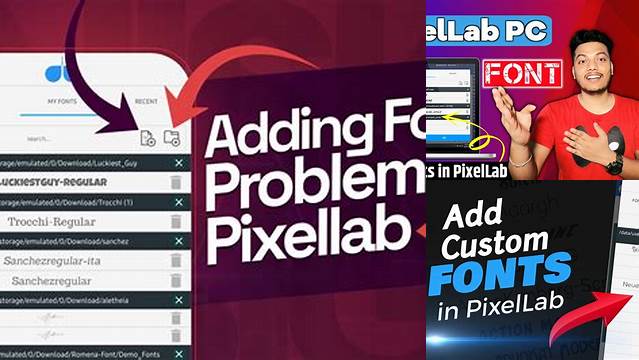
Add Fonts To Pixellab On PC: A Simple Guide
Adding custom fonts to Pixellab on your PC can significantly enhance your design projects, allowing for greater creativity and personalization. If you're looking to elevate your text designs and make them truly unique, mastering the font addition process is essential. This guide provides a detailed walkthrough on how to add fonts in Pixellab on PC, covering everything from finding the right fonts to installing them and using them in your projects. Let's dive in, guys, and get those creative juices flowing!
1. Understanding Pixellab and Its Font Capabilities
Before we jump into the process, it's crucial to understand what Pixellab is and its font capabilities. Pixellab is a fantastic mobile app designed for creating text-based graphics and designs. While primarily used on mobile devices, Pixellab can also be used on a PC using emulators. One of its standout features is the ability to add custom fonts, which opens up a world of design possibilities. Guys, think of it: you're no longer limited to the default fonts! You can use unique, stylish fonts that match your brand or the specific mood of your design. This feature makes Pixellab a powerful tool for anyone looking to create eye-catching visuals. By understanding these basic capabilities, you can fully leverage Pixellab's potential for your PC-based design projects, ensuring that your text elements are not only informative but also visually appealing and perfectly aligned with your creative vision. Adding custom fonts transforms Pixellab from a basic text editor into a versatile design platform. Custom fonts enable designers to match typography with specific branding guidelines, create unique visual identities, and tailor the aesthetic of their projects to meet diverse creative needs. This flexibility is particularly beneficial for marketing materials, social media graphics, and personal projects, where standing out from the crowd is crucial. Moreover, custom fonts can improve the overall readability and impact of text, making messages more engaging and effective. Experimenting with different font styles allows for the exploration of various design themes, from vintage and elegant to modern and bold. The ability to integrate custom fonts enhances the overall user experience by providing a more personalized and creative design environment.
2. Finding and Downloading Fonts for Pixellab
3. Installing Fonts on Your PC
4. Using an Android Emulator to Run Pixellab on PC
5. Adding Fonts to Pixellab Within the Emulator
Now that you have Pixellab running on your PC via an emulator, it's time to add your installed fonts to the app. Guys, this is the final step in our journey! Open Pixellab within the emulator. In the app, tap on the "A" icon at the bottom to access the text editing options. Then, select "Fonts." You will see a list of default fonts. To add your custom fonts, tap the "My Fonts" tab. Here, you'll see an option to add fonts from a folder. Navigate to the folder where you saved your downloaded fonts and select the font files you want to add. Pixellab will then import the fonts, and they will appear in your "My Fonts" list. You can now use these fonts in your designs. If you encounter any issues, ensure that the font files are in a compatible format (.ttf or .otf) and that the emulator has the necessary permissions to access your PC's file system. This process might vary slightly depending on the emulator you are using, but the basic steps remain the same. Once the fonts are added, they will be available for all your Pixellab projects, providing you with a wide range of typographic options. This step is crucial for personalizing your designs and making them stand out. Properly managing your font library within Pixellab will also ensure a smooth and efficient design workflow. Adding custom fonts to Pixellab expands the creative possibilities within the app, allowing for more unique and professional-looking designs. This feature is particularly useful for branding projects, where specific fonts are often required to maintain consistency. By importing custom fonts, users can ensure their designs align with their vision and brand guidelines, resulting in a polished and cohesive final product.
6. Troubleshooting Font Issues in Pixellab
Sometimes, adding fonts doesn't go as smoothly as planned. Guys, let's talk about some common issues and how to fix them. If a font doesn't appear in Pixellab after you've added it, first ensure that the font file is in the correct format (.ttf or .otf). Also, double-check that you've installed the font on your PC and that the emulator has access to your PC's file system. Sometimes, simply restarting the emulator and Pixellab can resolve the issue. If a font looks distorted or doesn't render correctly, it could be a compatibility issue. Try using a different font or updating Pixellab to the latest version. If you're using a large number of fonts, this can sometimes cause performance issues. Try removing unused fonts to improve Pixellab's performance. Always make sure that the fonts you are using are licensed for your intended use. Using unlicensed fonts can lead to legal issues. By addressing these common problems, you can ensure a smoother font addition process and a more enjoyable design experience. Troubleshooting is a critical skill for any designer, and understanding potential font-related issues can save you time and frustration. Keeping your software and emulator updated is also essential for optimal performance and compatibility. Regularly backing up your font library can prevent data loss and ensure you always have access to your favorite fonts. This step is vital for maintaining a seamless and efficient workflow, allowing you to focus on your creative work without technical interruptions. Identifying and resolving issues promptly ensures that your designs remain consistent and professional, regardless of the platform or device used.
7. Organizing Your Fonts for Better Workflow
Keeping your fonts organized is crucial for a smooth workflow, especially when you have a large collection. Guys, let's get organized! Create folders on your PC to categorize your fonts, such as by style (serif, sans-serif, script) or project. This makes it easier to find the font you need quickly. When downloading new fonts, immediately place them in their respective folders. Within Pixellab, you can also create a system for organizing your fonts. You might use descriptive names or tags to easily identify fonts that you use frequently or for specific projects. Regularly review your font library and remove fonts you no longer use. This helps keep your list manageable and improves Pixellab's performance. Consider using a font management tool to help you organize, activate, and deactivate fonts as needed. Good font organization not only saves time but also reduces clutter and improves your overall design workflow. An organized font library allows you to quickly access the perfect font for any project, enhancing your creativity and efficiency. Regularly cleaning up your font collection ensures that only necessary fonts are loaded, preventing performance issues and streamlining your design process. This step is critical for maintaining a productive and clutter-free workspace, allowing you to focus on the creative aspects of your work. Efficient font management also facilitates collaboration with other designers, as organized font libraries are easier to share and maintain consistency across projects. This practice contributes to a more professional and streamlined design workflow, ultimately improving the quality and consistency of your work.
8. Exploring Different Font Styles and Pairings
Experimenting with different font styles and pairings can significantly enhance your designs. Guys, let's get creative! Serif fonts (like Times New Roman or Garamond) are often used for formal designs and body text due to their readability. Sans-serif fonts (like Arial or Helvetica) are commonly used for headings and modern designs. Script fonts (like Brush Script or Pacifico) add a touch of elegance and are often used for logos and invitations. Display fonts are more decorative and are great for headlines and posters. Pairing fonts effectively involves choosing fonts that complement each other. A common strategy is to pair a serif font with a sans-serif font. For example, you might use a sans-serif font for the heading and a serif font for the body text. Avoid using two fonts that are too similar, as this can look unintentional. Use font pairings to create visual hierarchy and guide the viewer's eye through your design. By exploring different font styles and pairings, you can create visually appealing and effective designs. Font selection is a crucial element in design, influencing the overall aesthetic and message of your project. Understanding the nuances of different font styles and how they interact with each other can significantly improve the impact of your designs. Experimenting with various font combinations allows you to create unique and compelling visual compositions. This step is vital for achieving a professional and polished look, ensuring that your designs effectively communicate your intended message. Mastering font pairings also contributes to a stronger brand identity, as consistent use of specific font combinations can enhance brand recognition and create a cohesive visual style.
9. Optimizing Text for Pixellab Designs